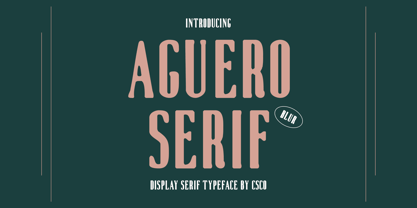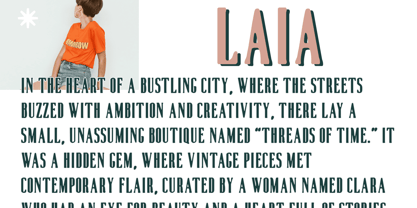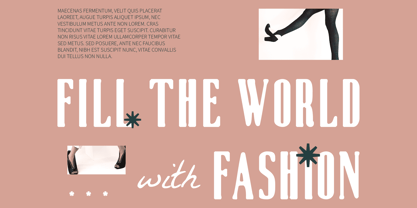
Aguero Serif Blur
by Craft Supply Co
The Aguero Serif Blur Font Family was designed by Trio Nazzar Saputra, Wahyu Hadi Yuana and published by Craft Supply Co. Aguero Serif Blur contains 2 styles and family package options. More about this family
Aguero Serif Blur Font: Where Elegance Meets Modernity
Refined Minimalism with a Soft Blur Effect
This a modern serif font characterized by its condensed, clean, and minimalist design, beautifully paired with a subtle blur effect. This combination creates an elegant and refined aesthetic, where narrow letterforms ensure excellent readability while infusing a soft, ethereal quality into your designs.
Refined Aesthetic for Luxury Branding
With its narrow letterforms, this blur font excels in luxury branding and editorial layouts. The condensed style allows for impactful headlines and elegant body text, ensuring readability without sacrificing visual appeal. Whether used in a prestigious magazine or a premium product line, this font captures the essence of sophistication.
Soft Ethereal Quality for High-End Packaging
The subtle blur effect adds a soft, ethereal quality to this blur serif font, enhancing its elegance and allure. This unique characteristic makes it ideal for high-end packaging designs, where a gentle touch is essential for attracting discerning customers. The graceful curves and refined details create a memorable impression that resonates with luxury and exclusivity.